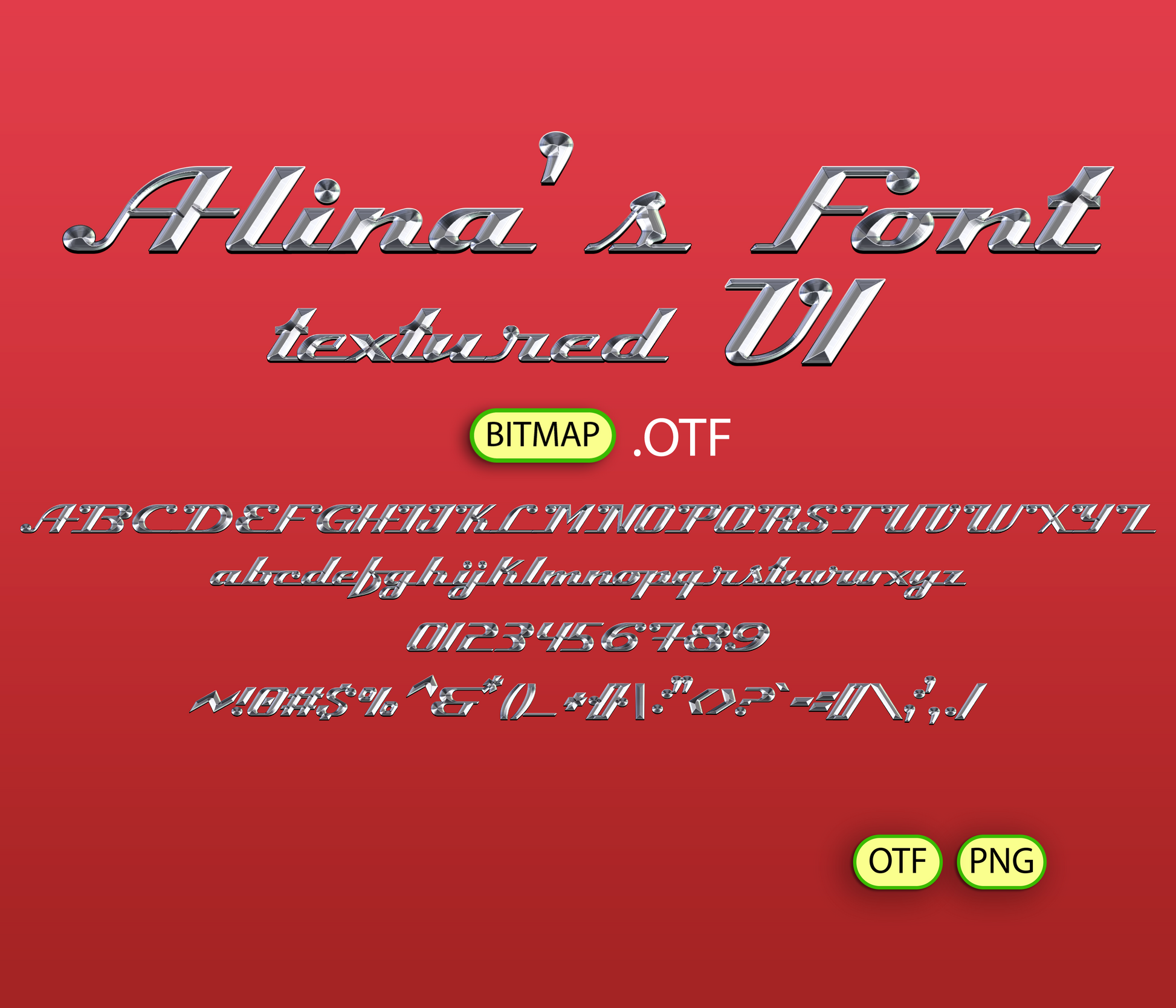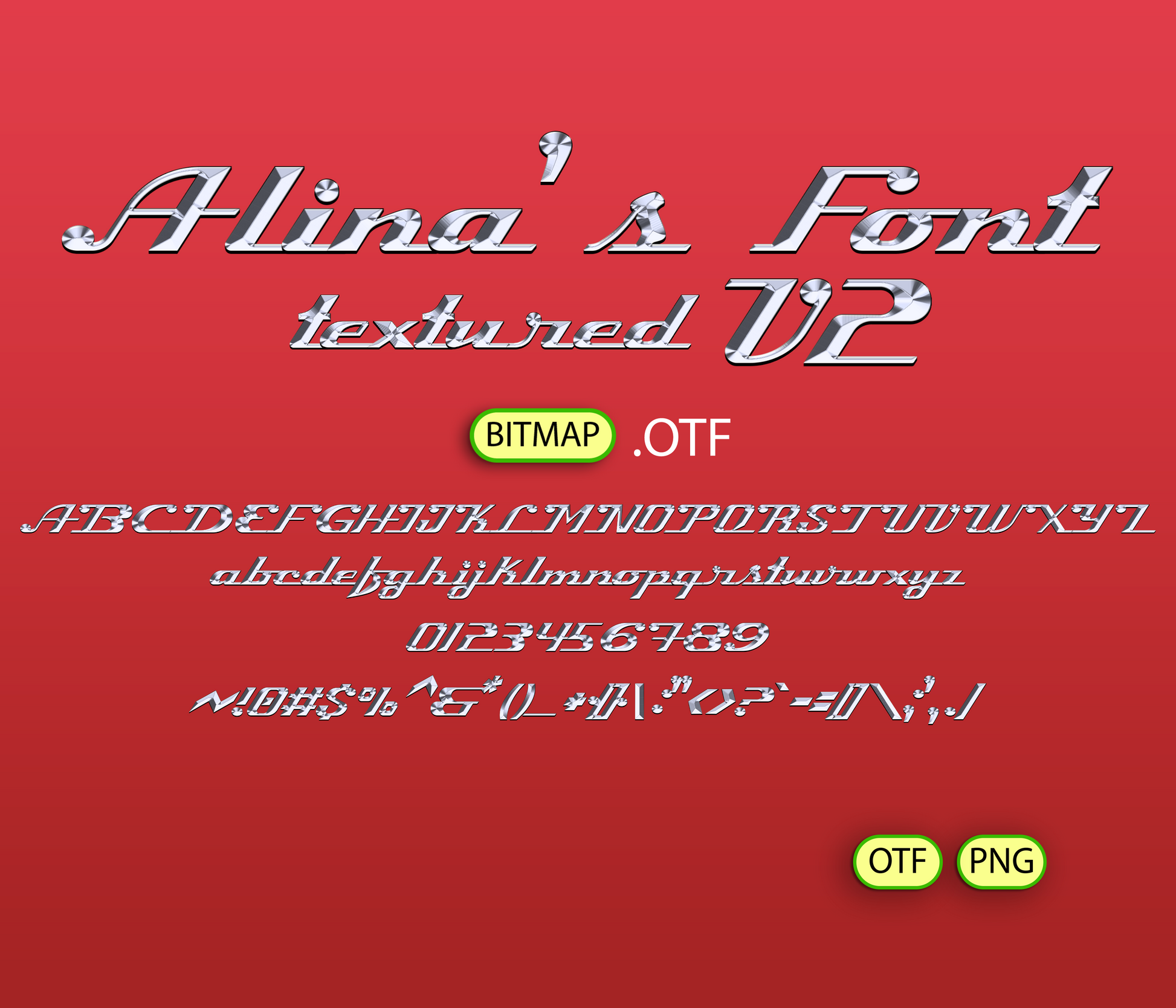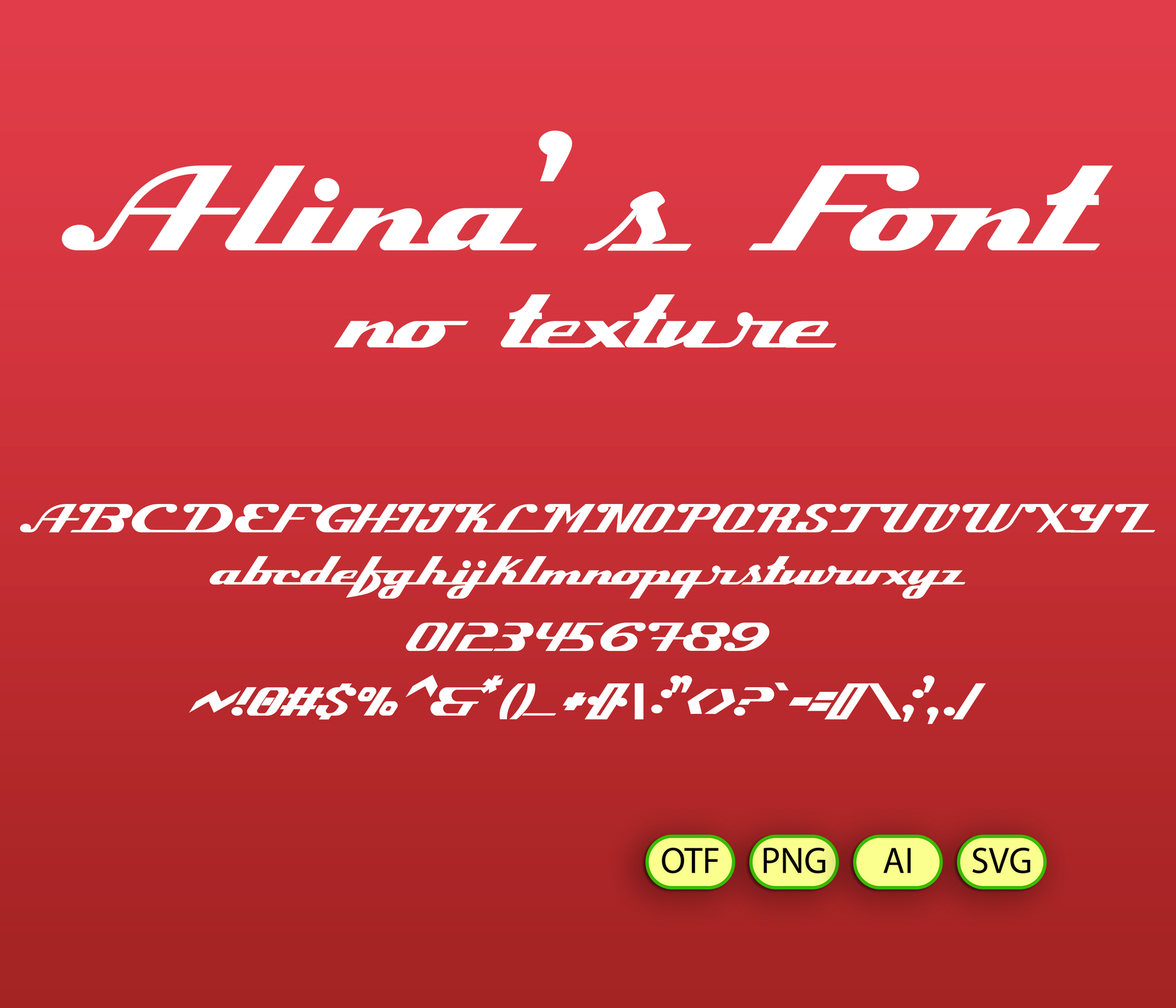
Speedy Automobiles Font Textured Bundle
Step into the world of high-octane adventure with our Speedy Automobiles font, capturing the essence of beloved racing heroes and their incredible journeys. Perfect for automotive enthusiasts, event organizers, and designers, this font brings the dynamic, energetic spirit of these beloved vehicles to your projects. Create racing-themed materials, merchandise, or digital content with the turbo-charged energy of these four-wheeled friends.
Design and Versatility:
Our Speedy Automobiles font features bold, dynamic lines and playful characters reflecting the high-speed world of these beloved racers. Ideal for:
Our Speedy Automobiles font includes textured and non-textured variants, ensuring compatibility with all software, including Canva. This feature allows easy incorporation into designs for users of all skill levels.
Many seek an online font generator to mimic the look of the Speedy Automobiles Font. Steer clear! No generator can match the quality of our font, which comes in two versions: a textured colored font and a simple version, perfect for cutting machines.
Our font pays tribute to the beloved racing world, empowering your designs with its high-energy and adventurous spirit. Whether crafting promotional materials, designing merchandise, or adding a dynamic touch to personal projects, this font communicates the bold essence of these speed machines. Ready to inject automotive excitement into your creations? This font is your key to exciting, impactful design.